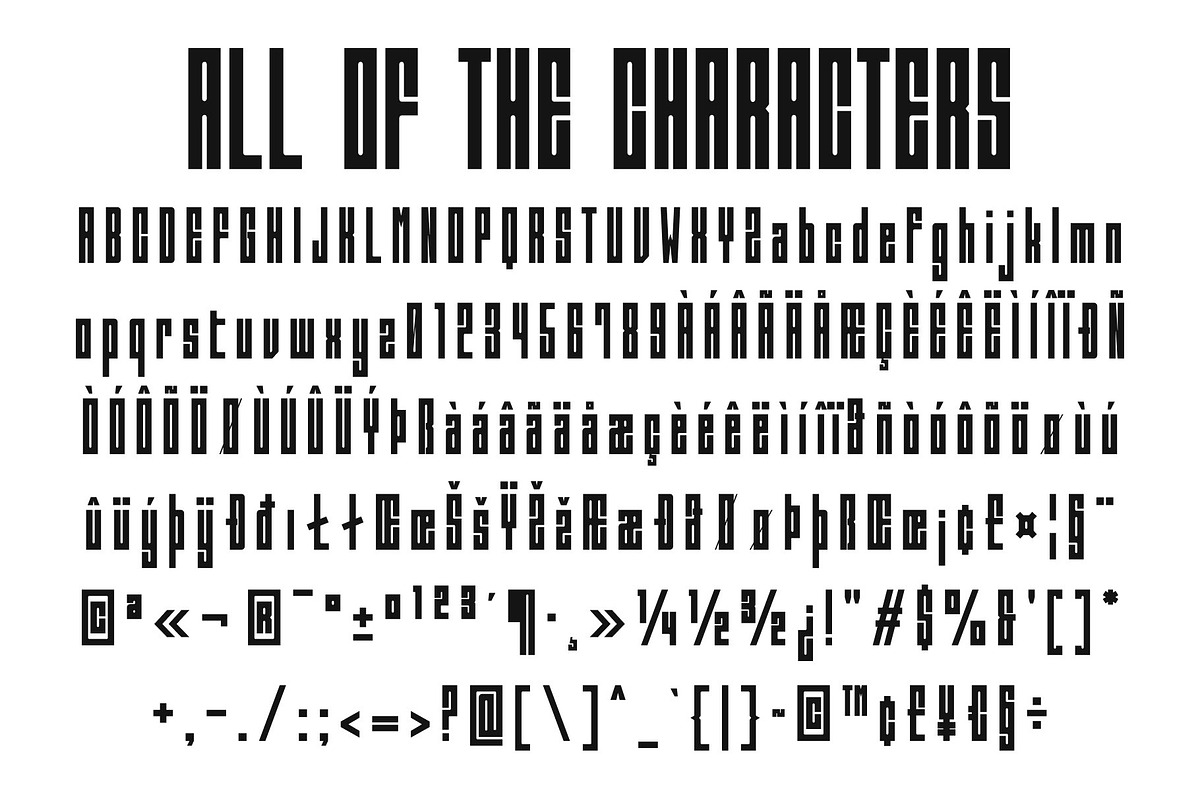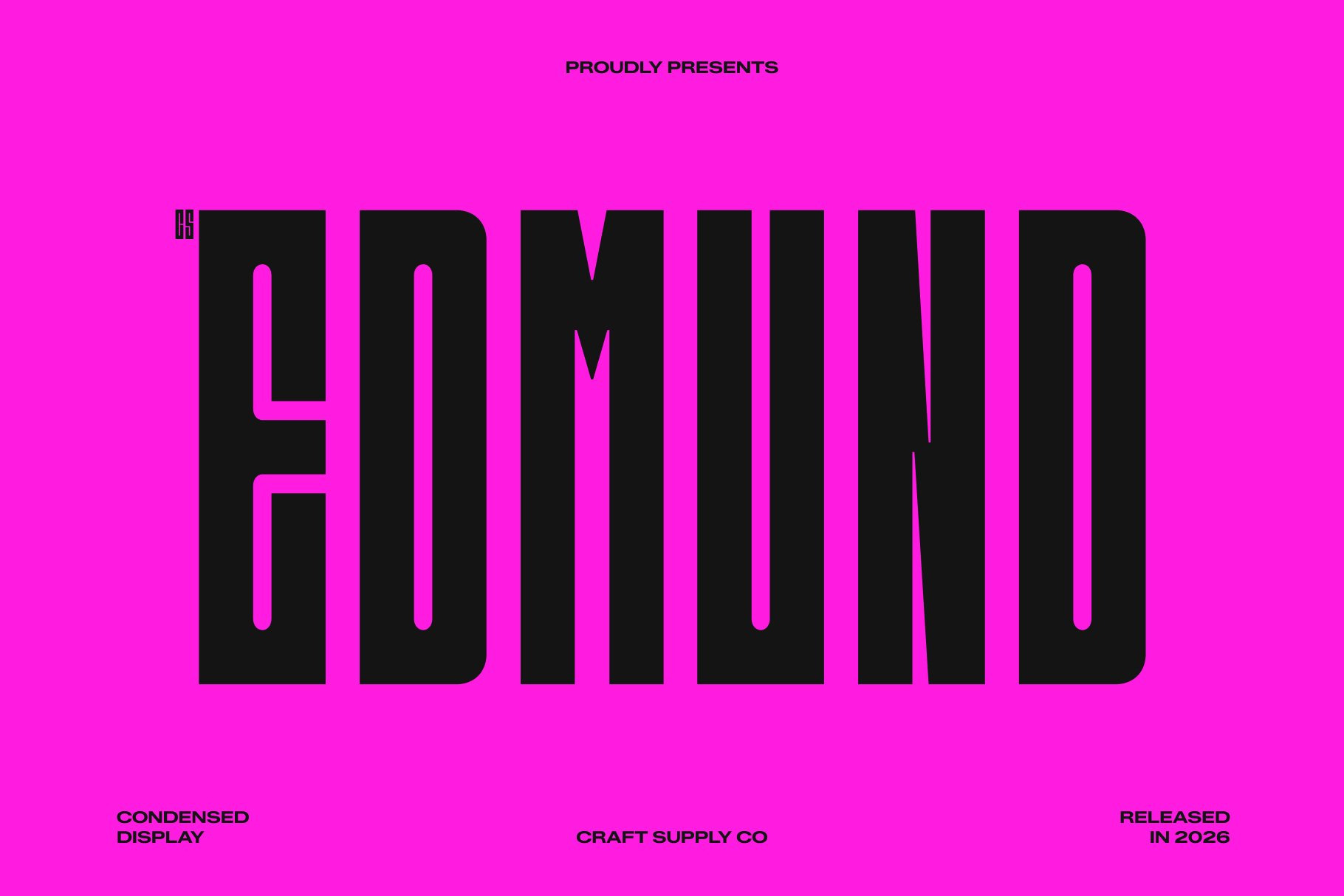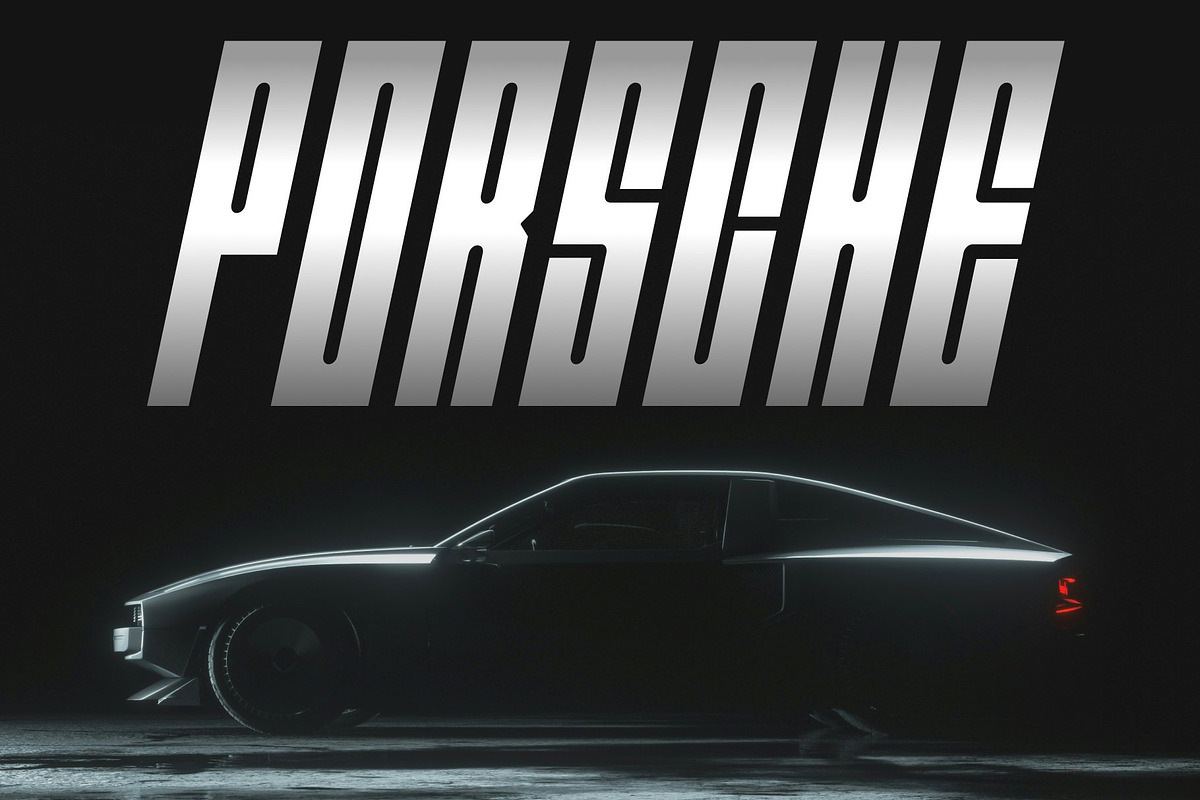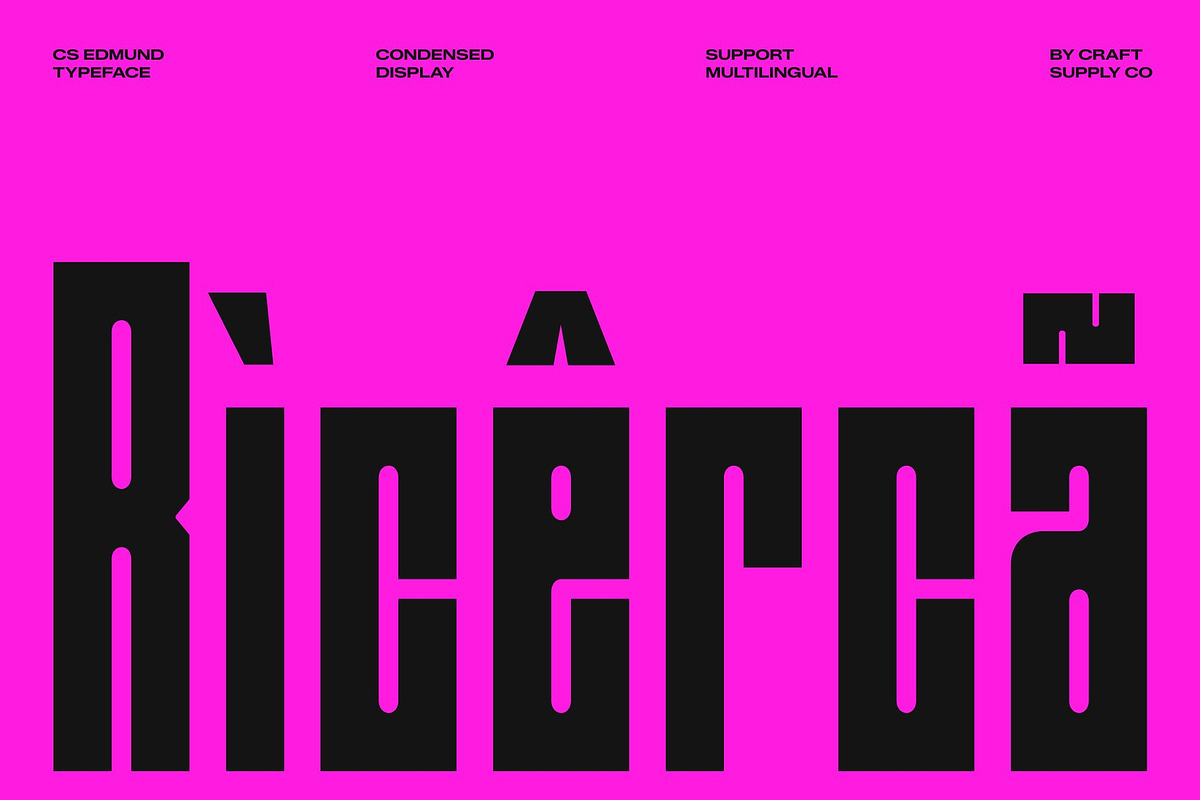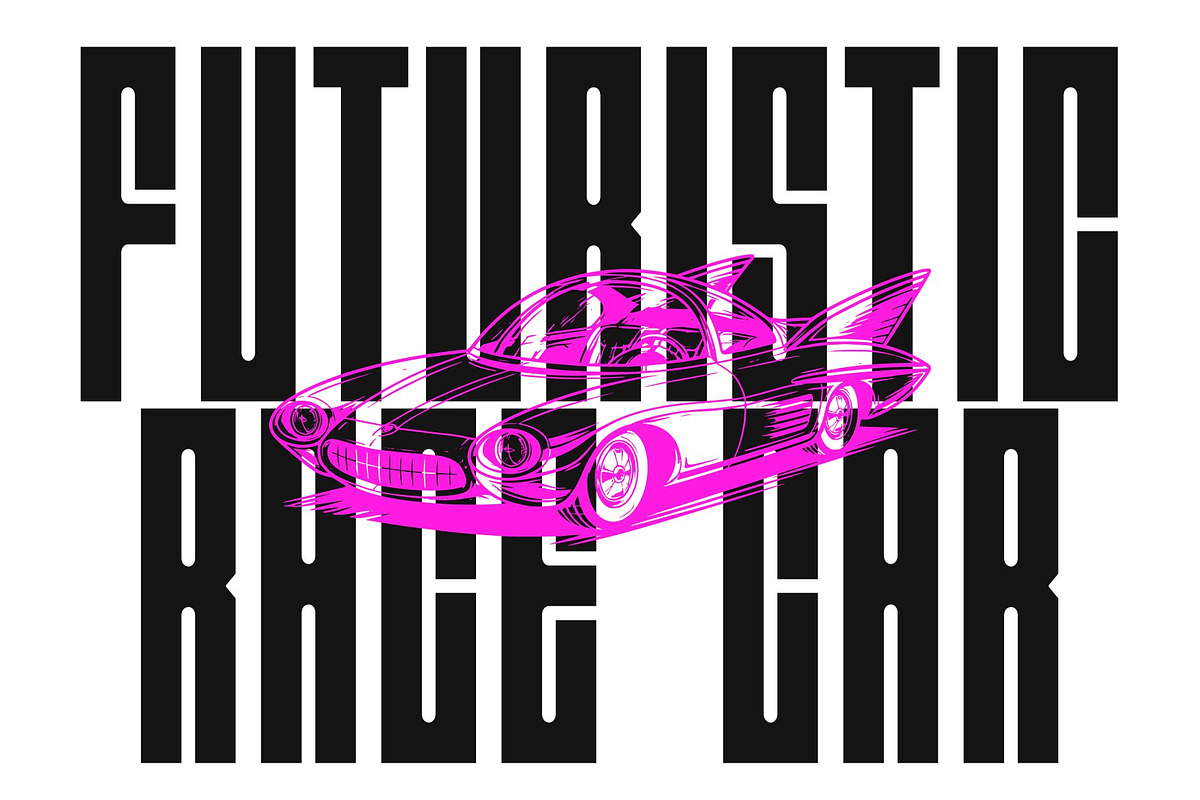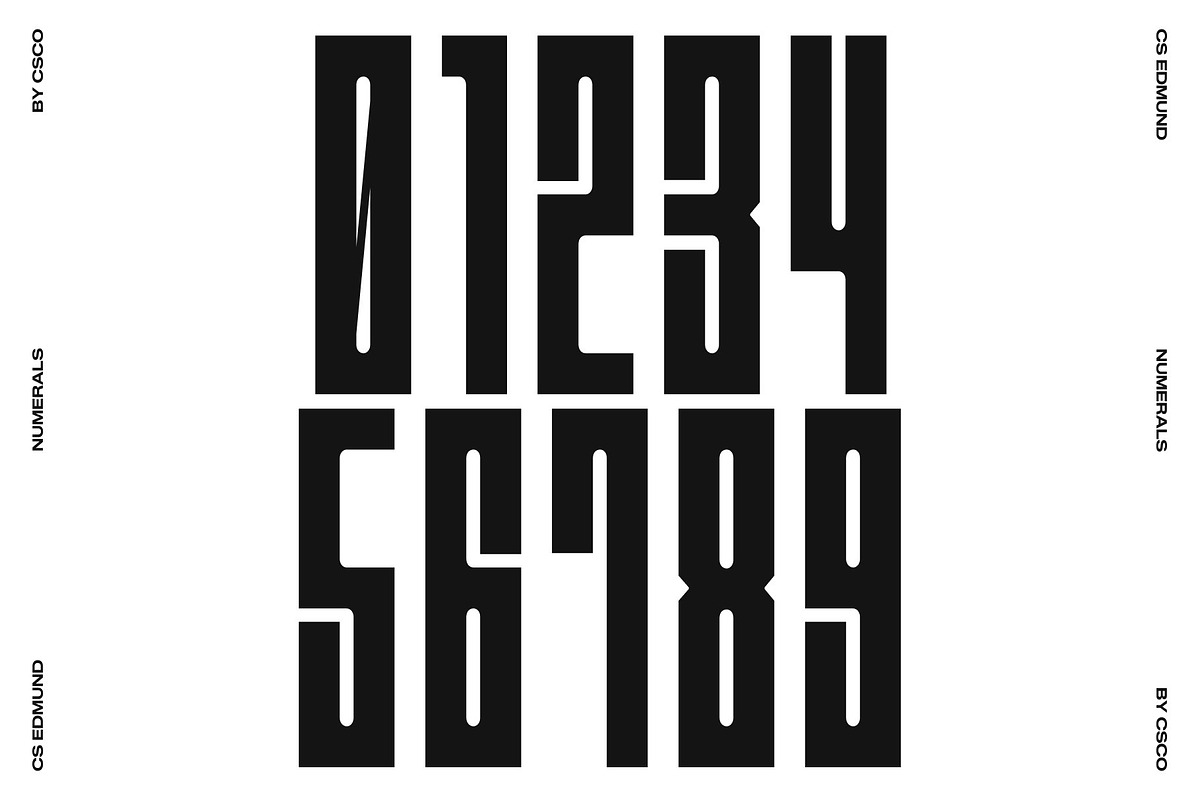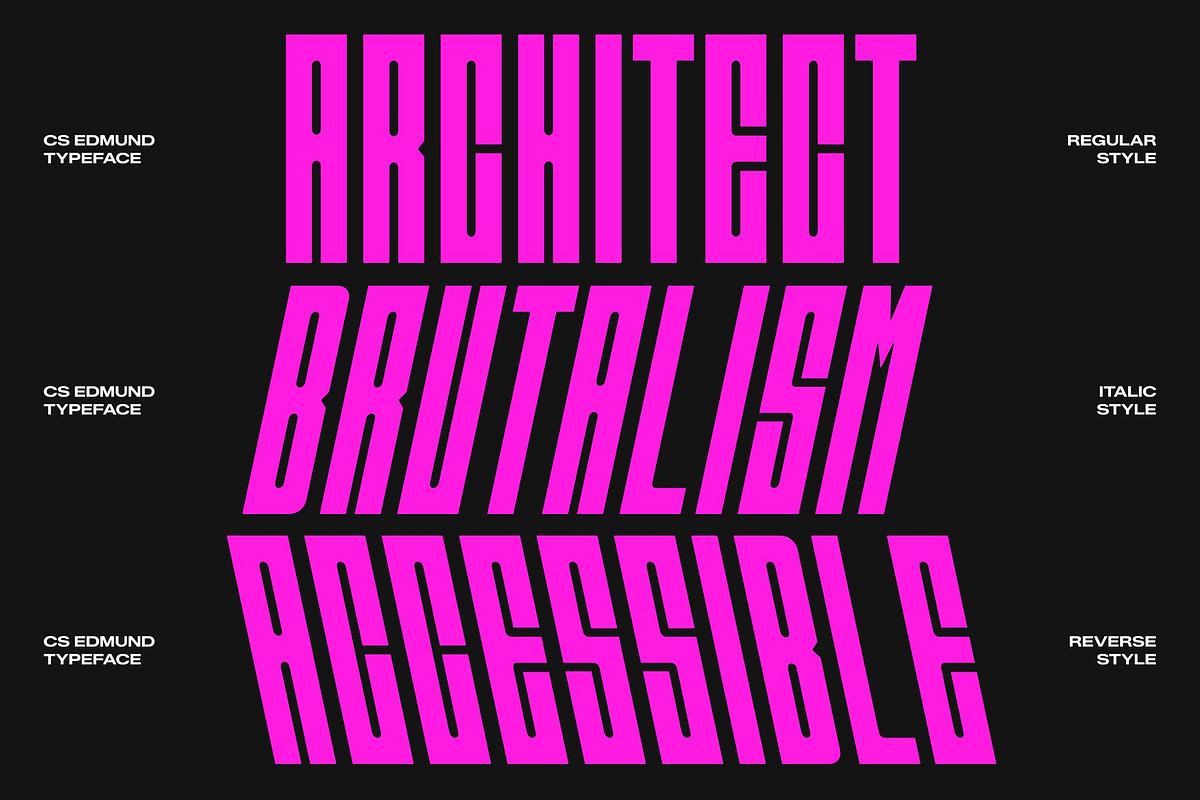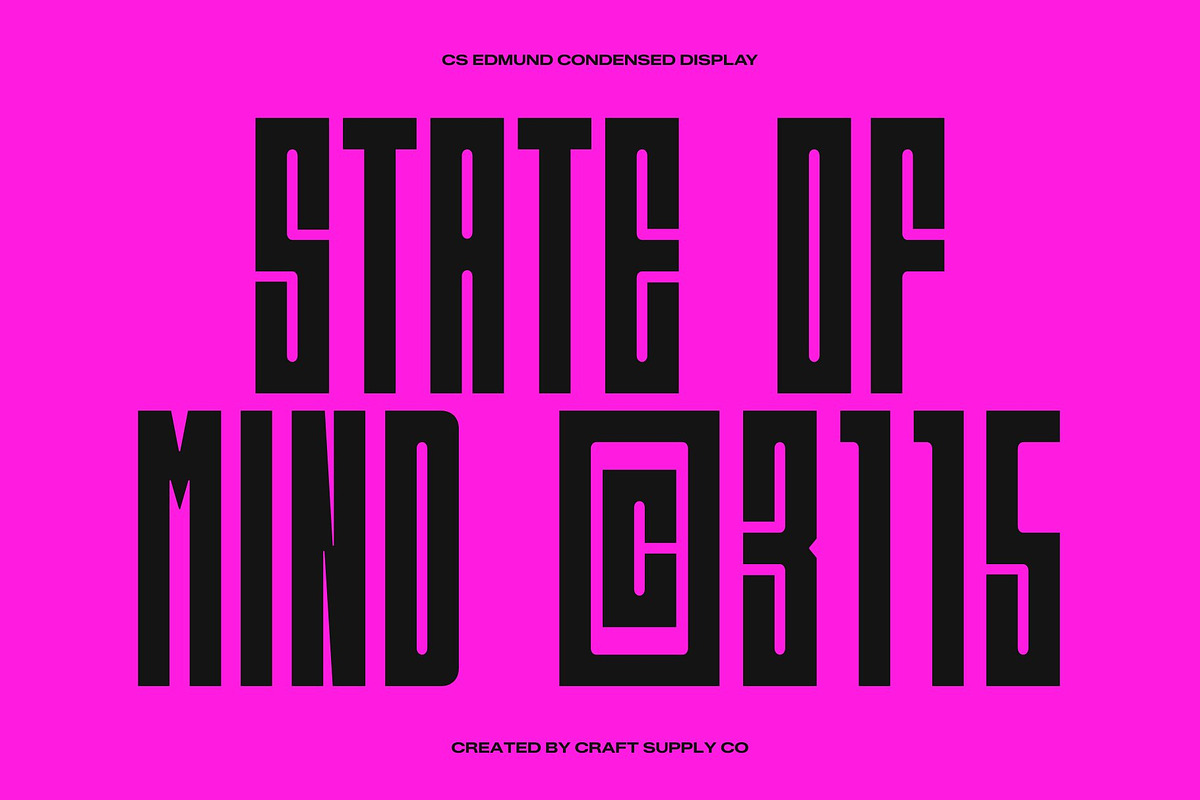
CS Edmund – Condensed Font
CS Edmund – Condensed Display Font with Industrial Modern Style
Condensed Display Font with Sleek Contemporary Design This is a condensed display font crafted to deliver a sleek, modern, and industrial visual identity. With its streamlined proportions and bold structure, this typeface creates a strong presence that feels contemporary and highly functional. It is designed for creators who need typography that communicates confidence, precision, and modern energy.
Industrial Character with Clean Geometry The letterforms feature firm shapes and clean geometric construction, giving the font a technical and industrial-inspired appearance. Its structured design creates a sense of stability and strength while maintaining a polished and professional look. This balance makes this font suitable for both creative and commercial applications.
Compact Form with Bold Visual Impact The condensed proportions allow text to fit efficiently into tight layouts while preserving readability and impact. Each character is carefully shaped to appear tall, compact, and commanding, making the font ideal for bold headlines and space-conscious compositions. This efficient design ensures every word remains sharp and attention-grabbing.
Perfect for Titles, Posters, and Industrial Design From posters and industrial branding to editorial titles and digital graphics, this font adapts effortlessly across modern creative projects. Its combination of sleek design, industrial character, and strong readability ensures your typography feels bold, contemporary, and visually striking.
CS Edmund Regular
CS Edmund Italic
CS Edmund Reverse Italic